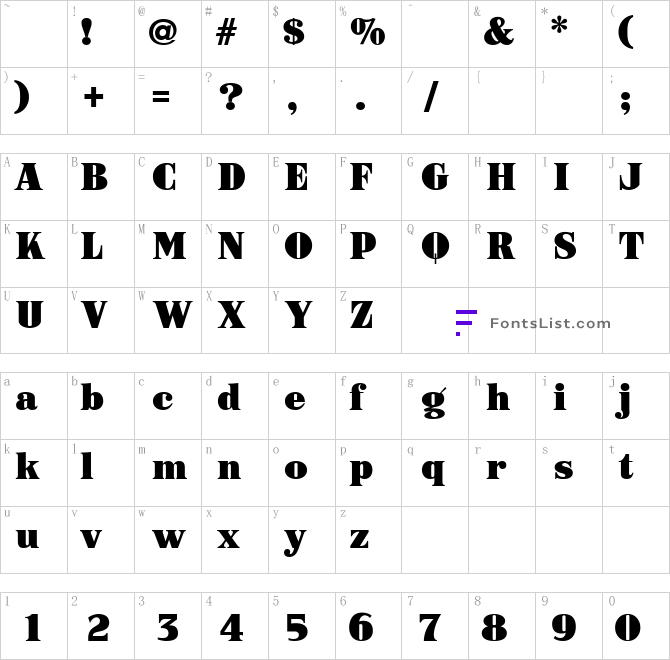
ARB-187-Moderne-Caps-AUG-47-CAS-Normal.ttf is a very beautiful artistic font, ARB-187-Moderne-Caps-AUG-47-CAS-Normal.ttf is widely used in the design and printing of various books and pictures,ARB-187-Moderne-Caps-AUG-47-CAS-Normal.ttf has a strong visual impact,ARB-187-Moderne-Caps-AUG-47-CAS-Normal.ttf is a commonly used font in newspapers, magazines and books, and is used in posters, e-commerce Poster design, store design, logo design, font design and other fields.ARB-187-Moderne-Caps-AUG-47-CAS-Normal.